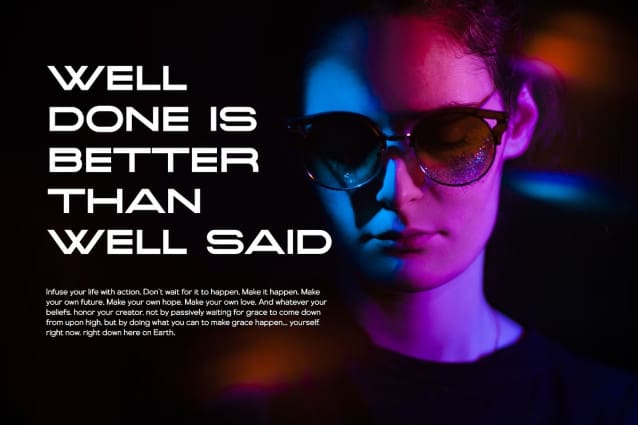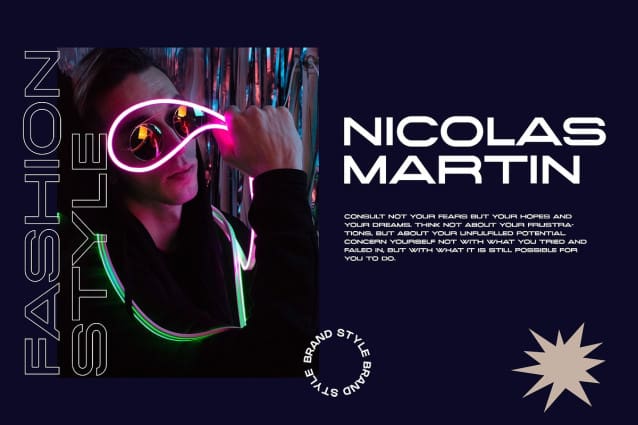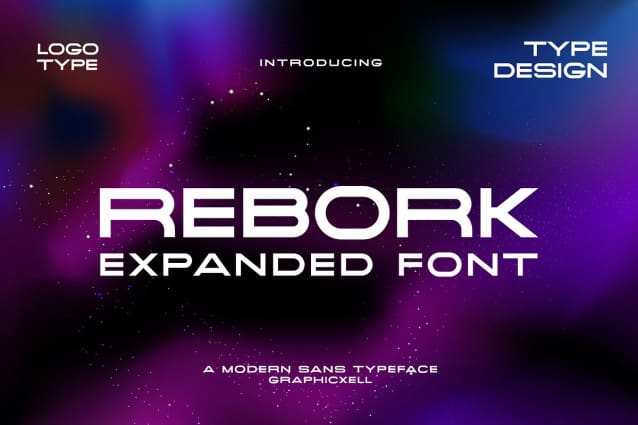
Rebork Font
Rebork Font – Expanded Technology Font . This font has a harmonious and beautiful shape that makes it perfect for all your needs for long text, branding, logotypes, print designs and more. This font is made in detail and measured by using geometric details to make this font look balanced and minimalist. This font is dedicated to the use of all needs in 2023, and will be the most popular and best selling font of the year.